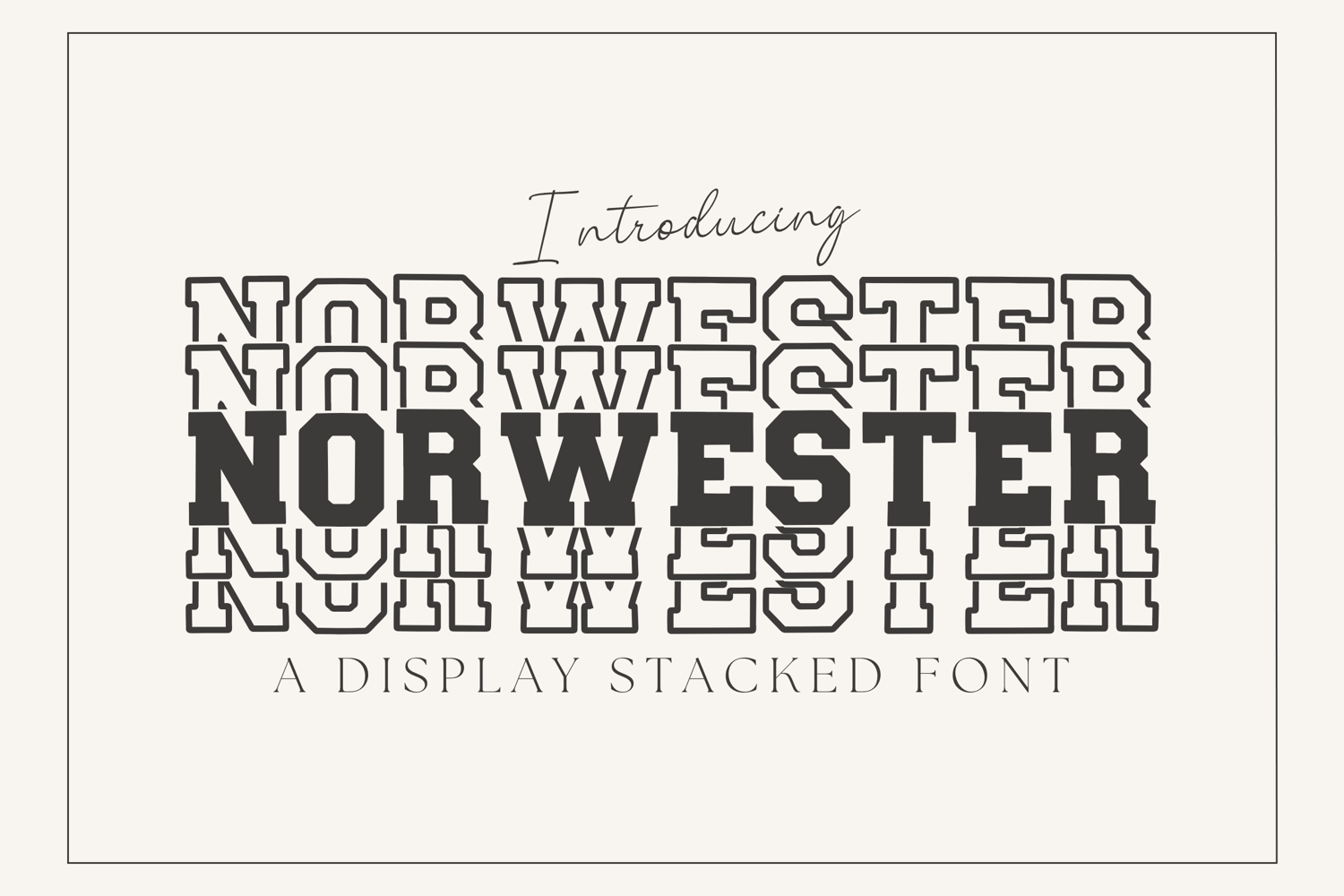
Norwester Stacked - Bold Varsity Block Font
Norwester Stacked
Norwester Stacked is a powerful all-caps varsity display font designed for maximum impact. With its condensed block lettering and strong stacked layout, this font is perfect for team logos, jerseys, sports posters, and bold headline designs.
Inspired by classic college and athletic typography, Norwester Stacked delivers the clean, geometric look of the original Norwester but with a design optimized for stacked compositions — making it ideal for monograms, emblems, and layered branding projects.
✨ Features:
• Condensed All-Caps Typeface with varsity styling
• Perfect for stacked lettering and monogram layouts
• Strong geometric block shapes for bold readability
🎯 Perfect For:
• Sports & varsity branding
• Team jerseys & championship posters
• School & college event flyers
• Monograms & stacked logo designs
• Merchandise, apparel & packaging